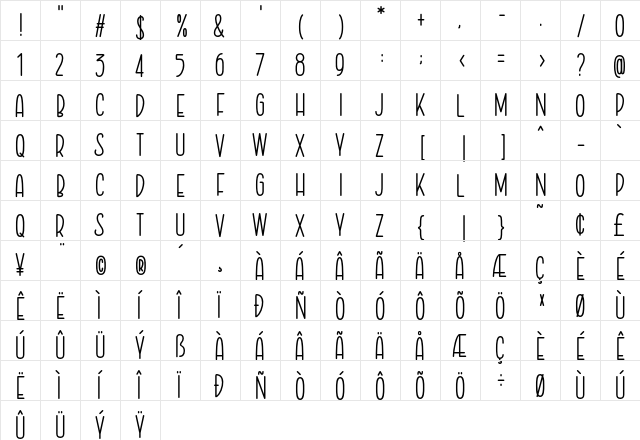
Empathy Sans Regular
Design Context for Empathy Sans Typeface
Empathy Sans is a composed and adaptable typeface that performs quietly and consistently across a wide range of design contexts.